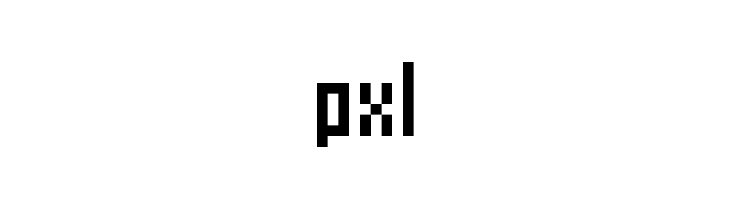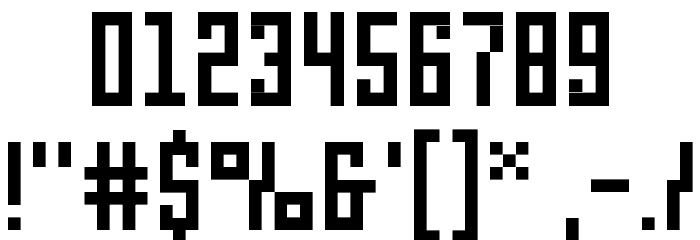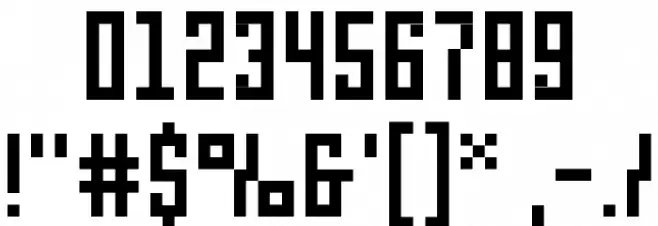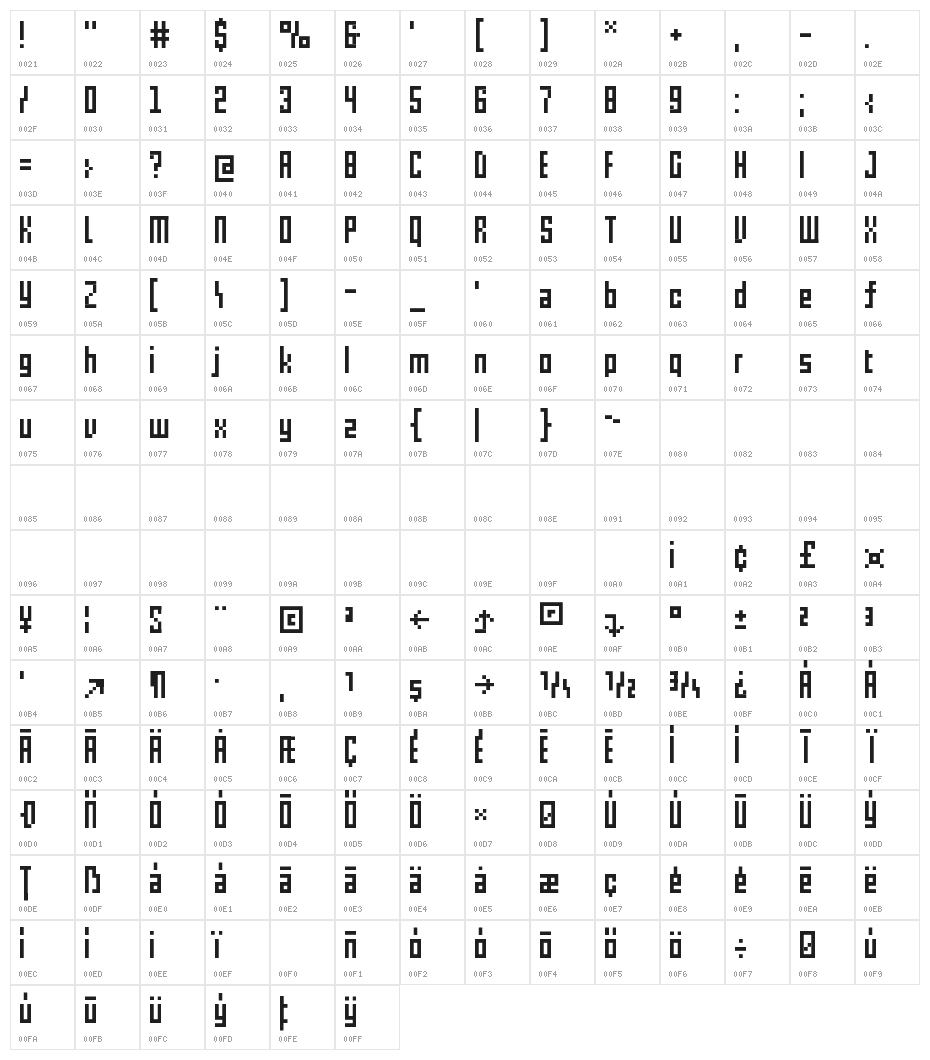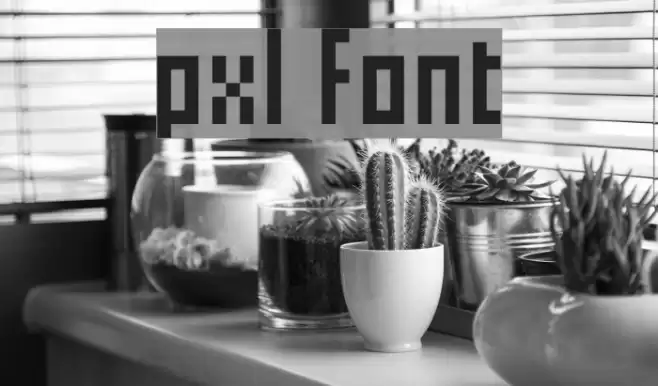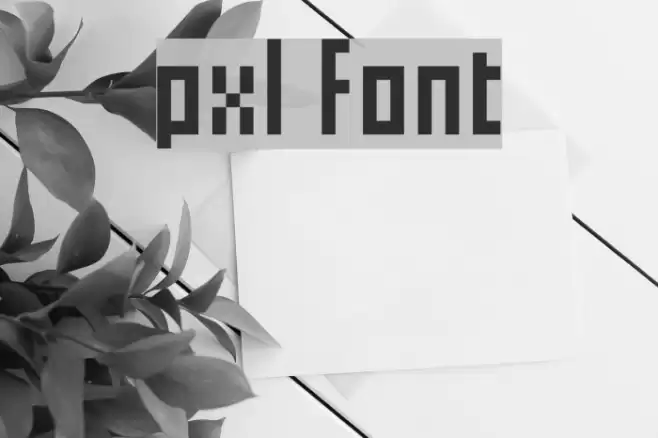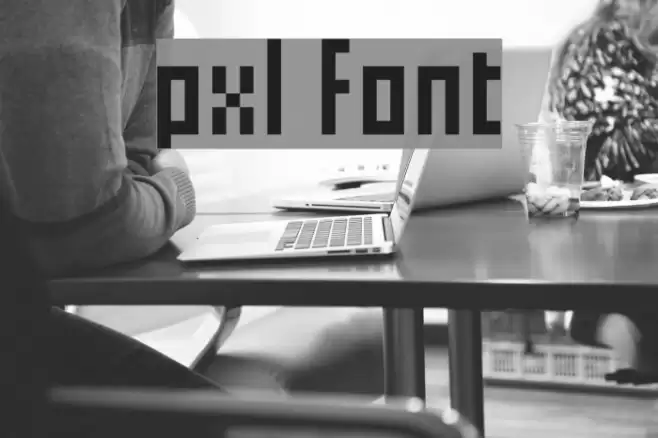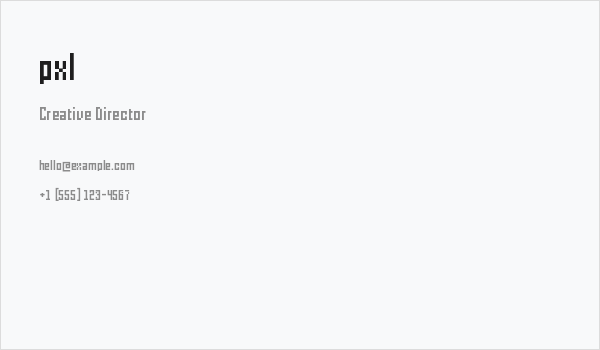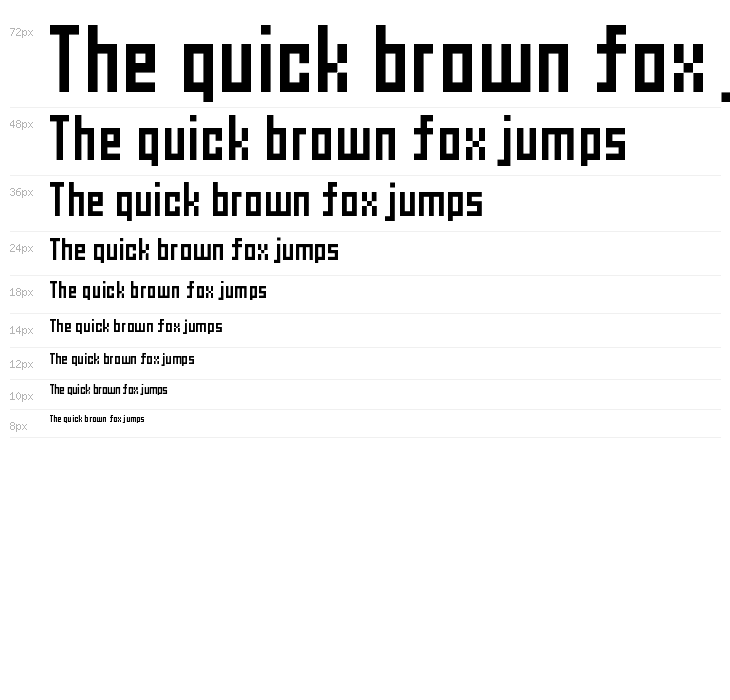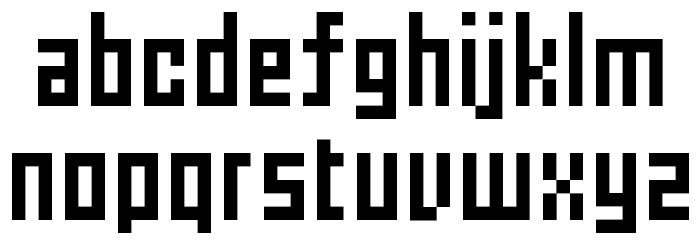
pxl Font
pxl Description
This font features a bold, geometric design with a distinctly modern and digital aesthetic. Each character is constructed with sharp, straight lines and right angles, giving it a blocky, pixelated appearance reminiscent of early digital displays or retro video games. The uniformity in stroke width across all characters contributes to a cohesive and structured look. The uppercase and lowercase letters maintain a consistent height, enhancing the font's monospaced feel. Numbers and special characters are designed with the same geometric precision, ensuring readability and a seamless integration with the alphabetic characters. This font's style is both nostalgic and futuristic, making it versatile for various creative applications.
| Use Case | Logos, Headlines, Digital displays |
| Proposed Projects | Ideal for retro-themed designs, video game graphics, digital art, and tech-related branding. |